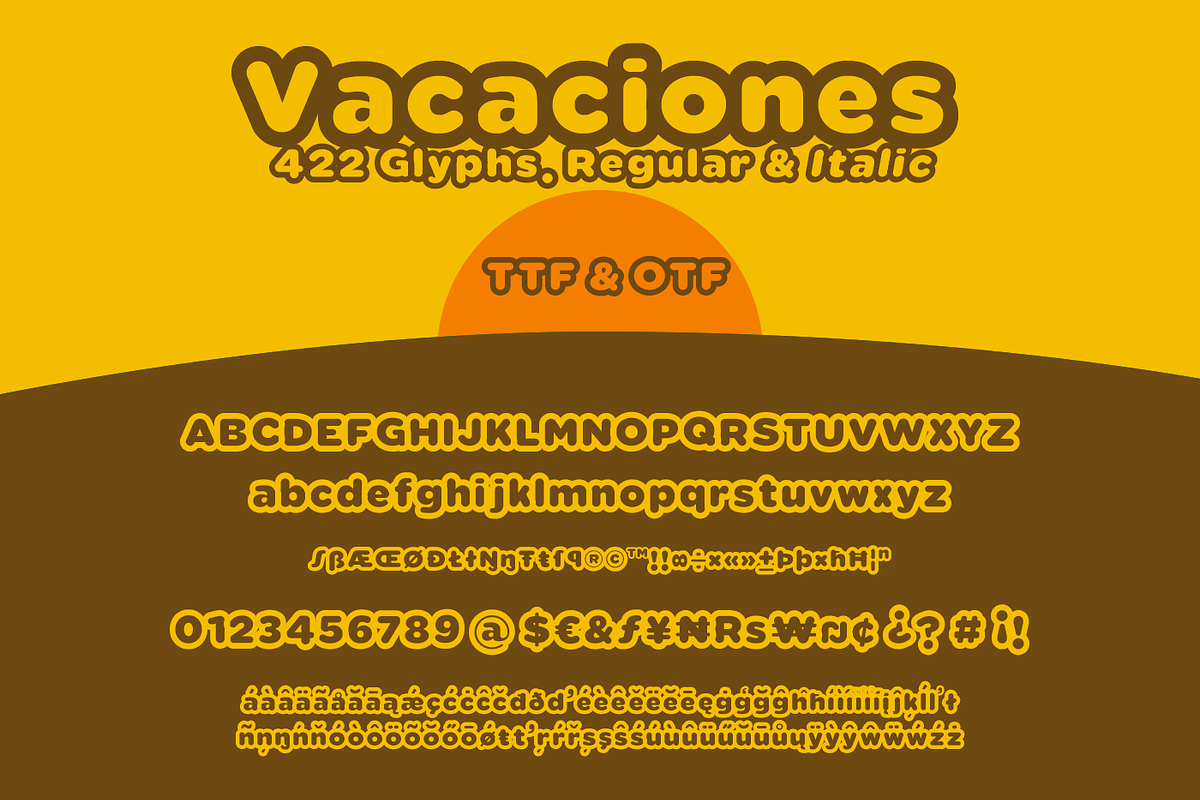
Vacaciones big outline font
Vacaciones big outline font by deFharo is a font selected for branding, posters, packaging, typography.
- Vacaciones Regular
- Vacaciones Italic
Vacaciones big outline font by deFharo fits naturally into Branding, posters, packaging, typography.